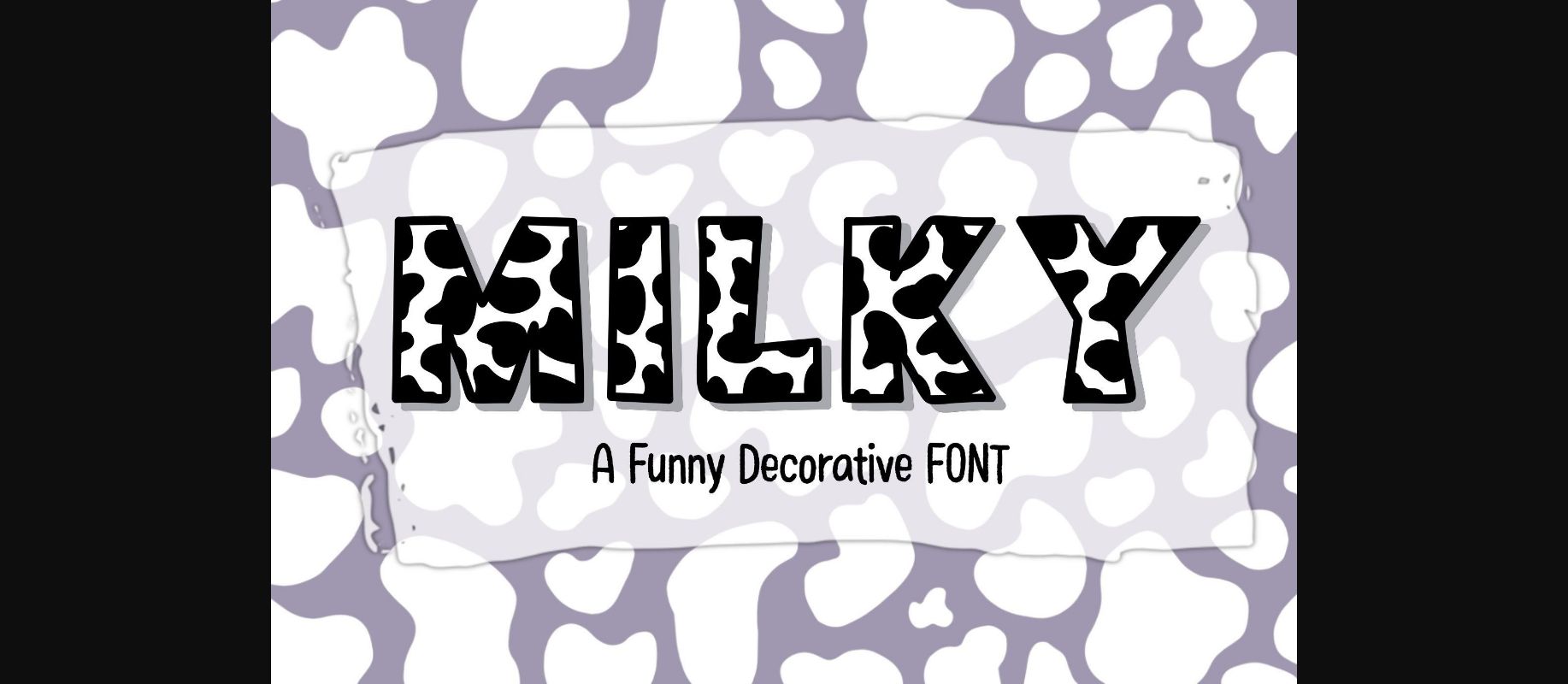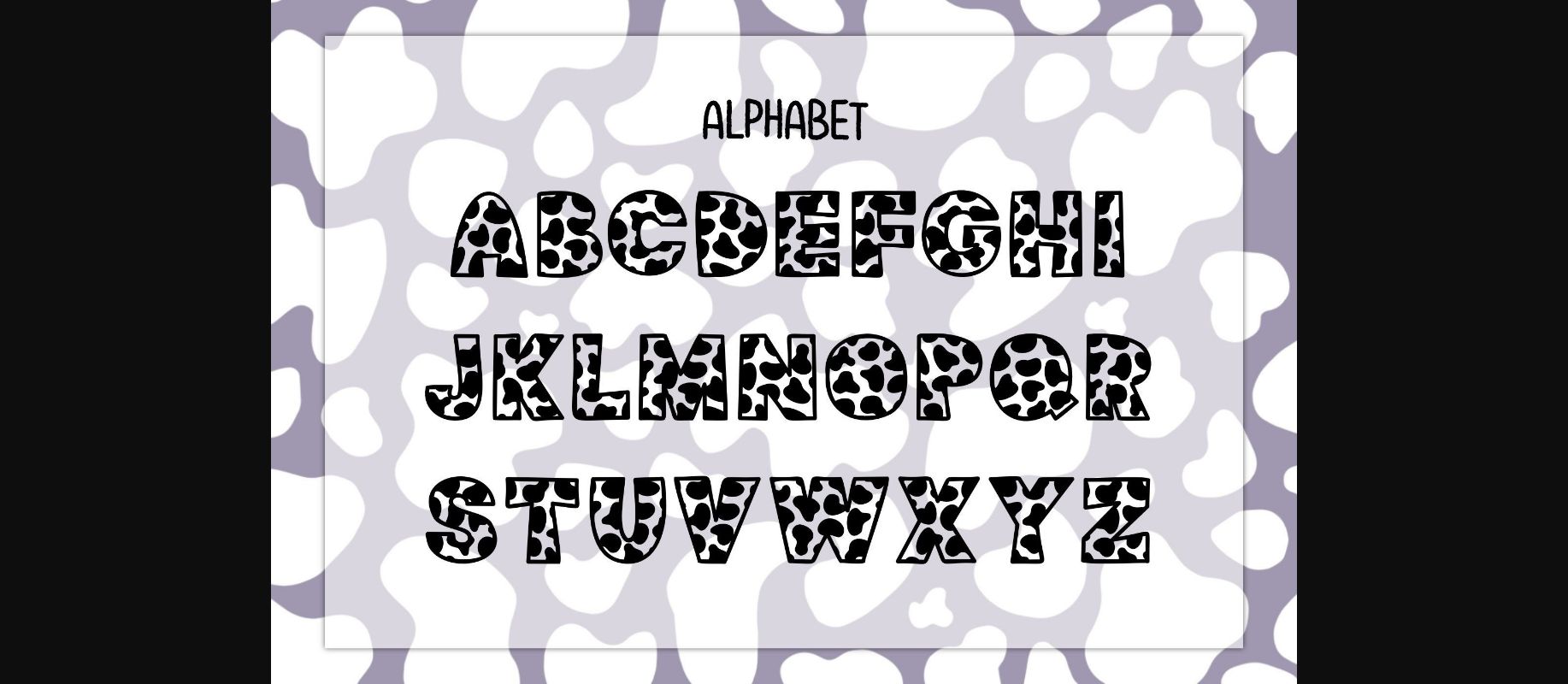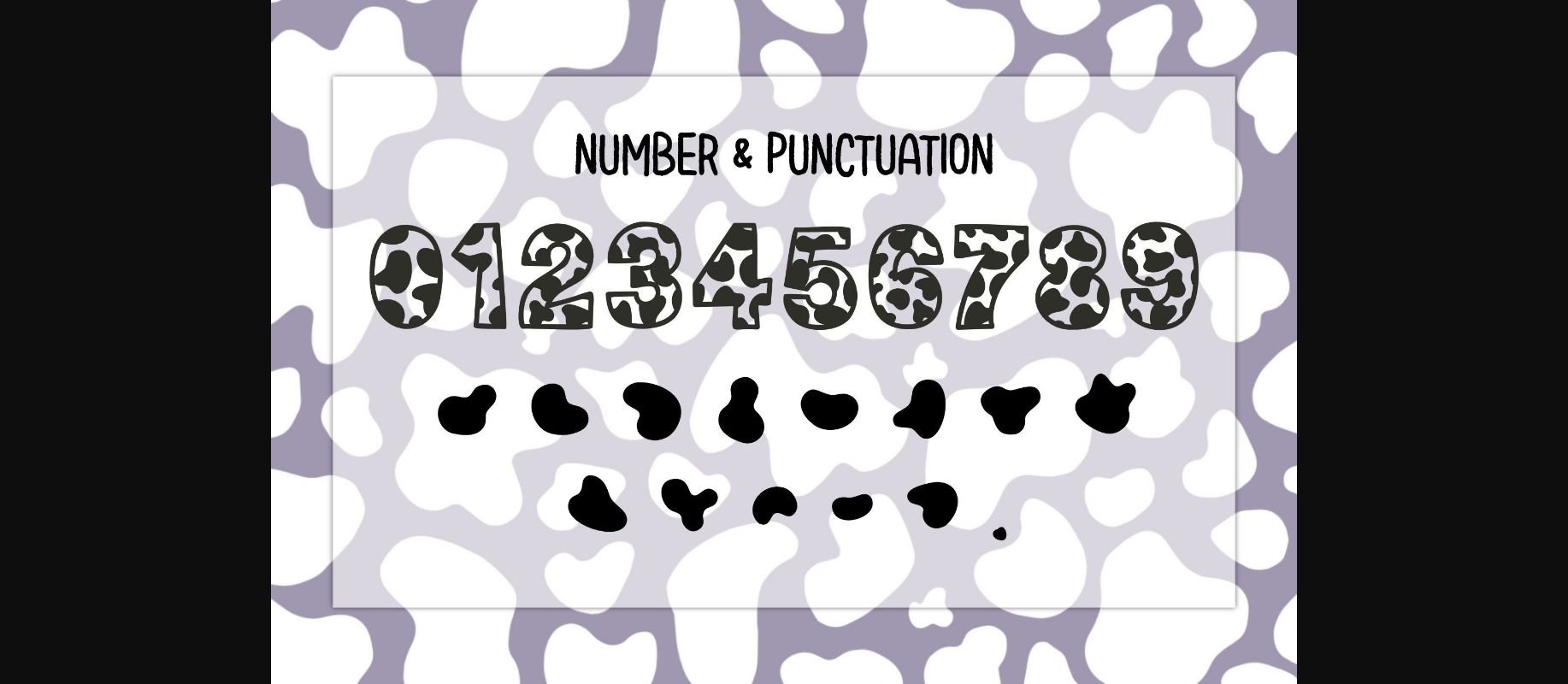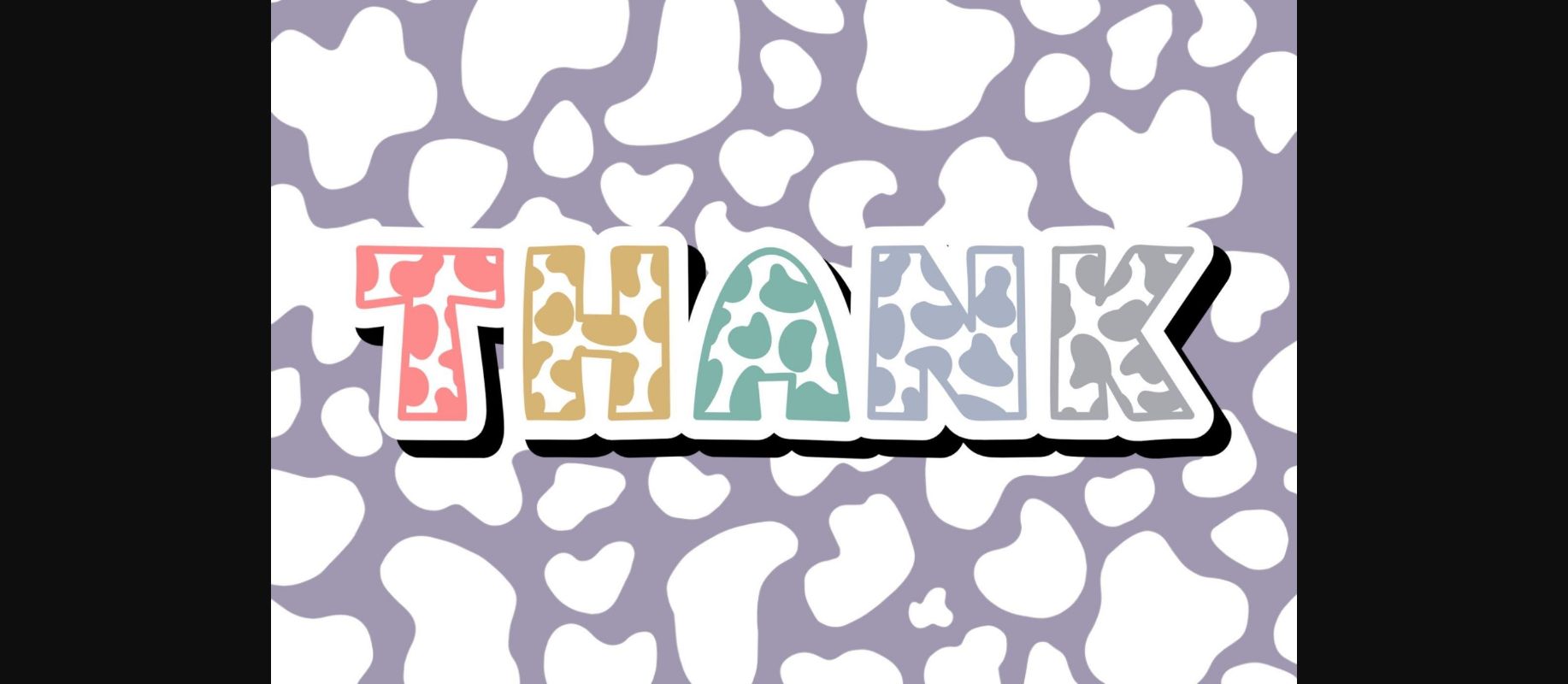
About Milky Font
Milky is a funny decorative font perfect for all of your logos, branding, social media posts, crafty DIY projects, and much more. Add it to your most creative ideas, and notice how it makes them come alive!